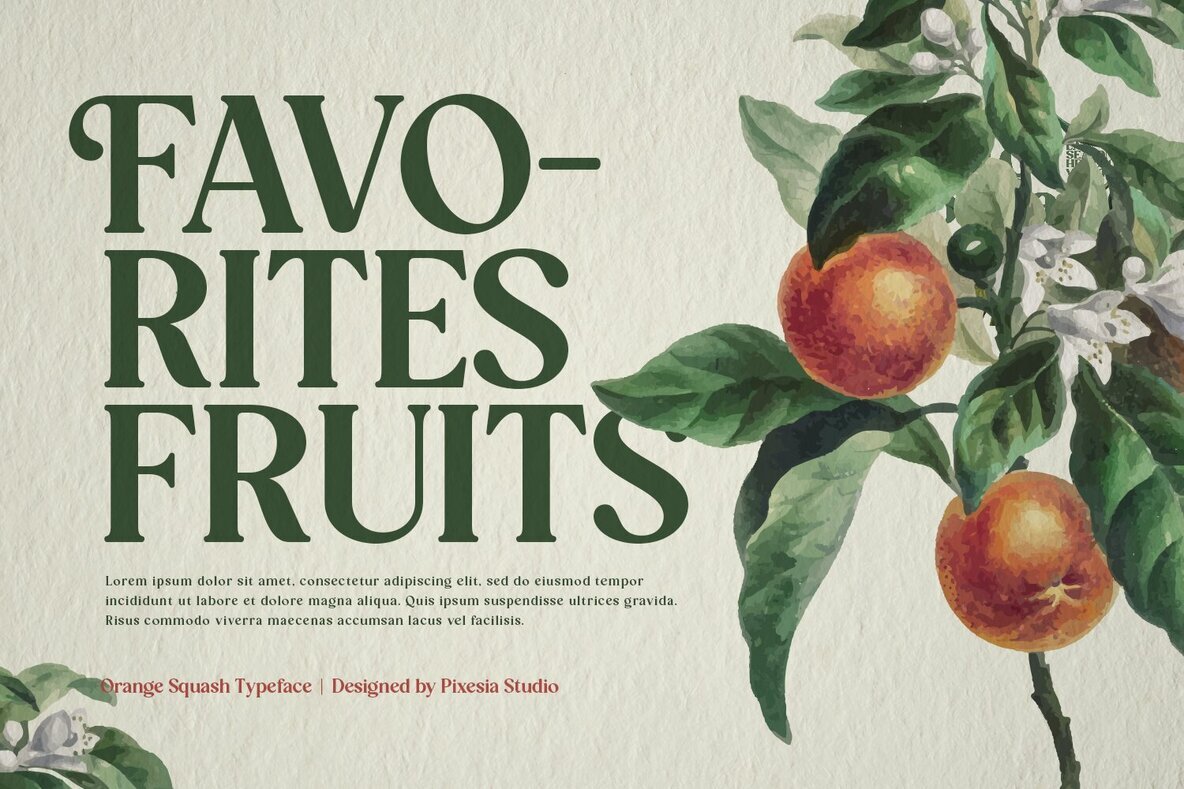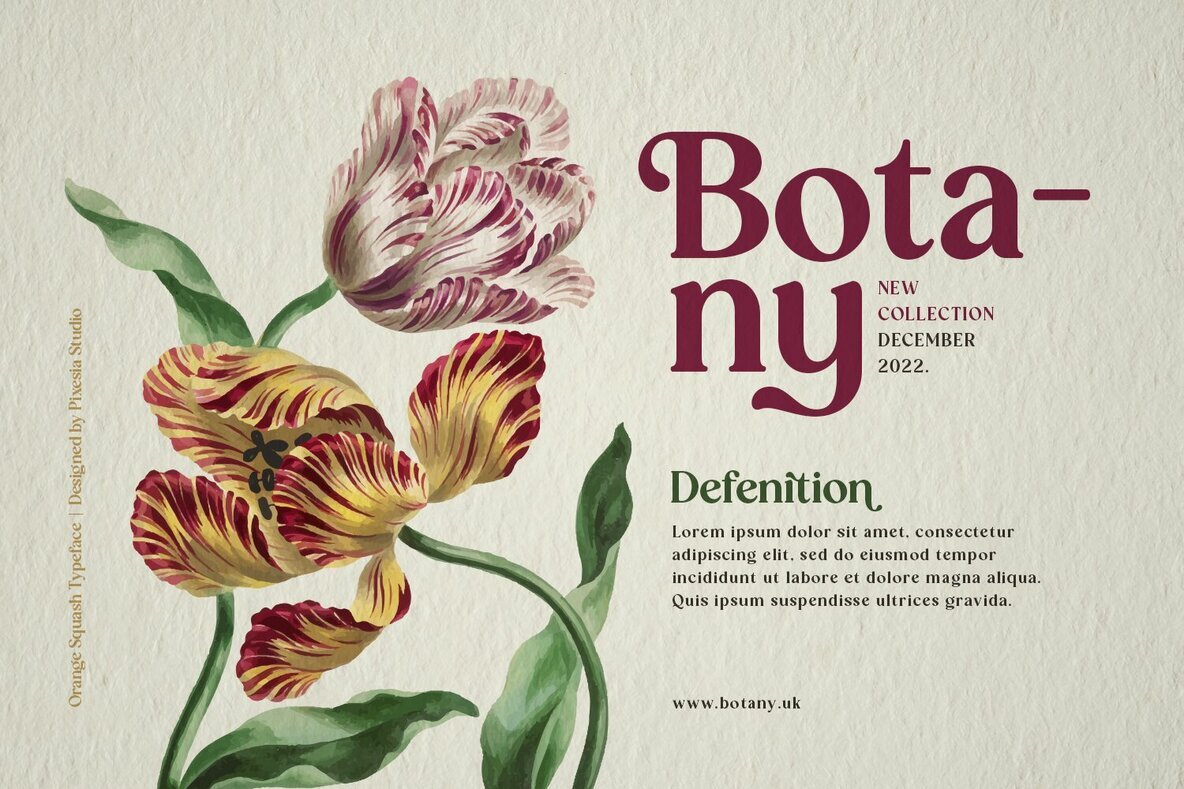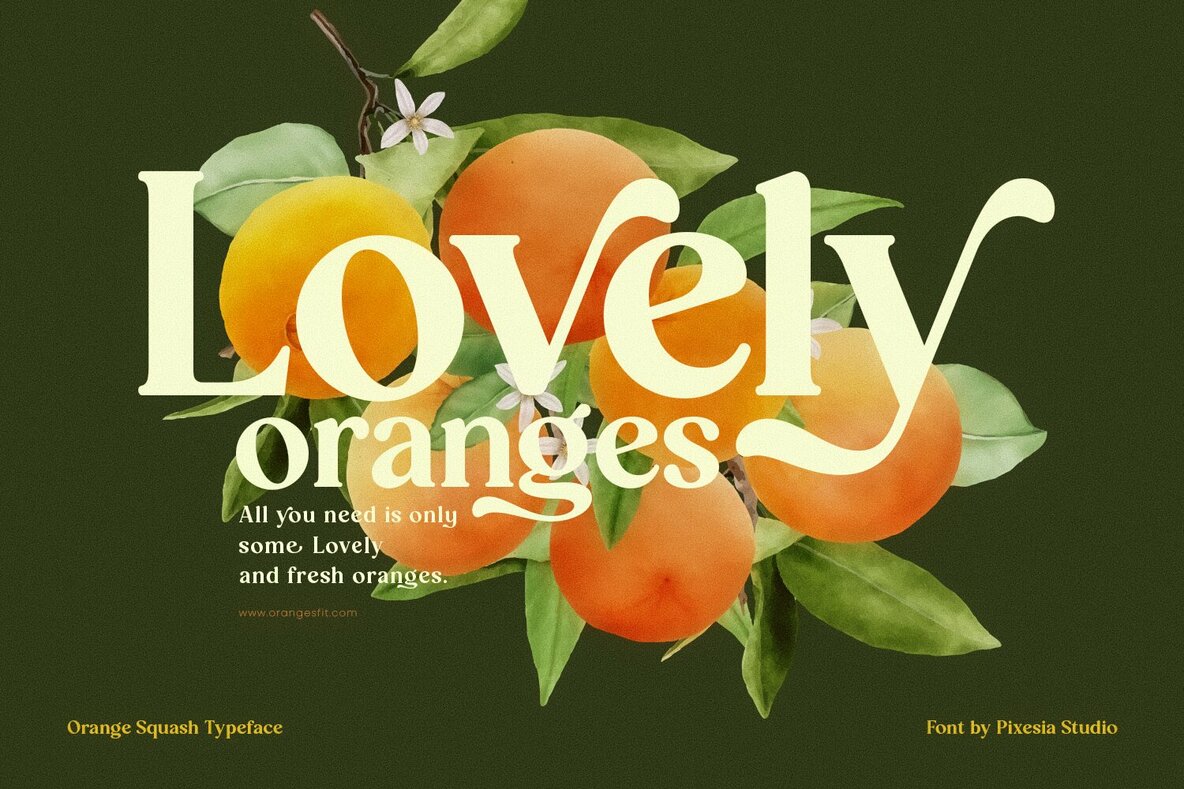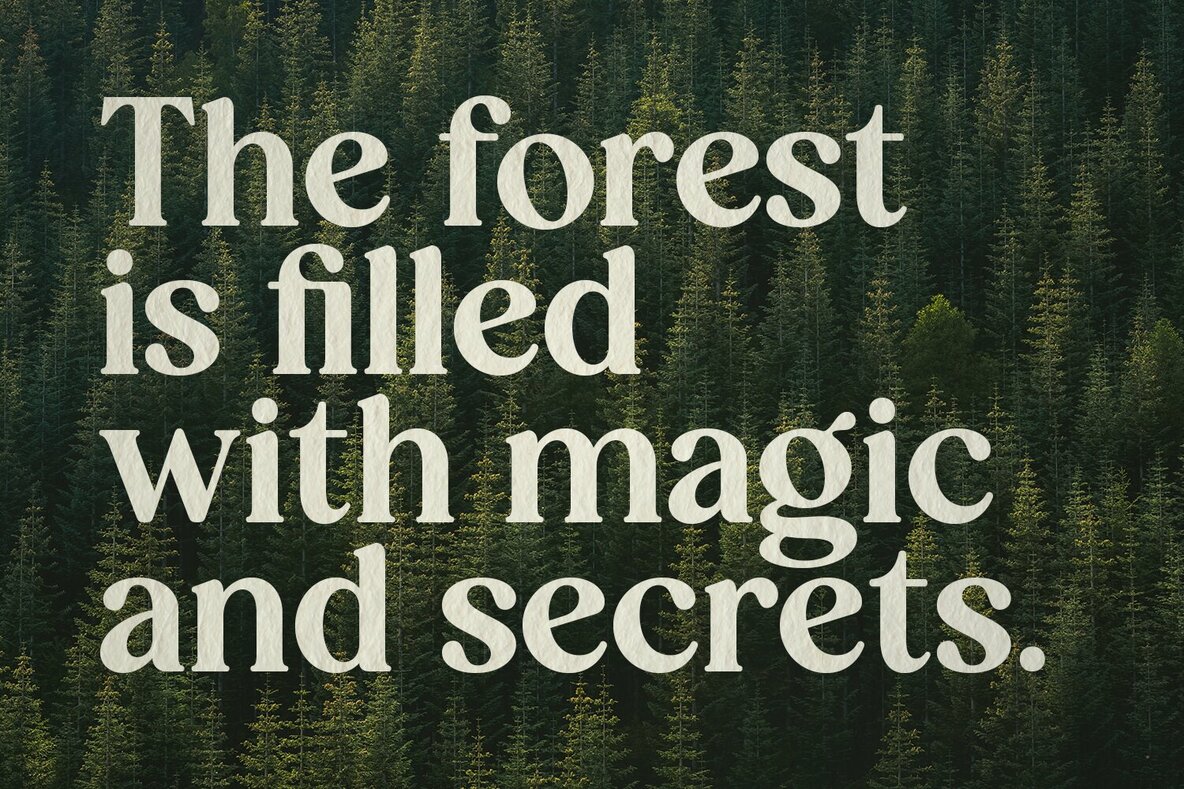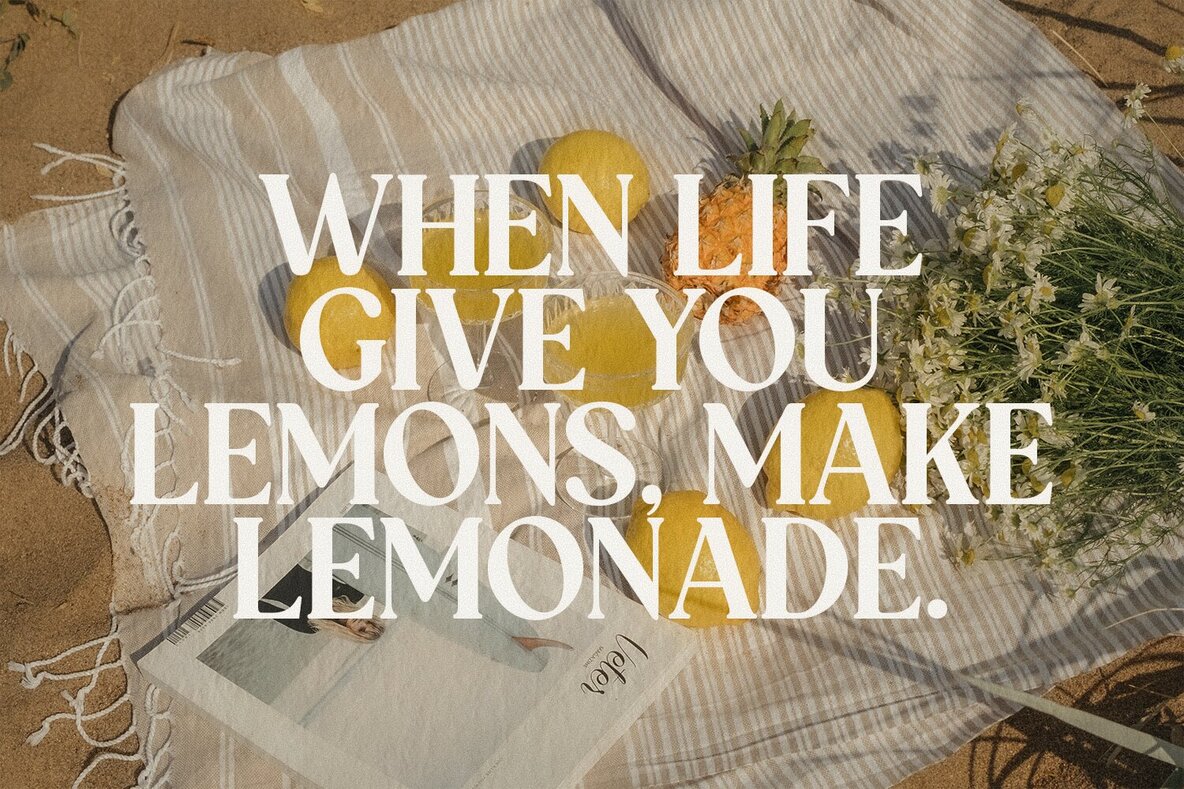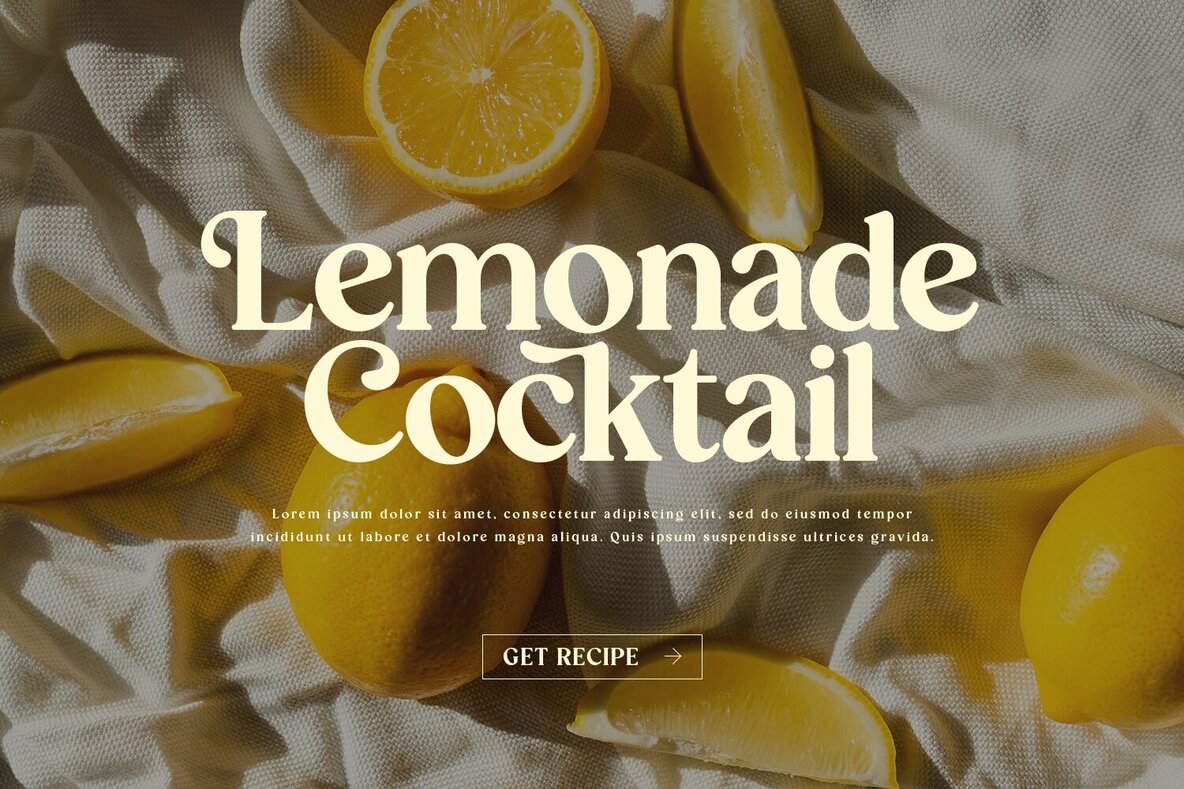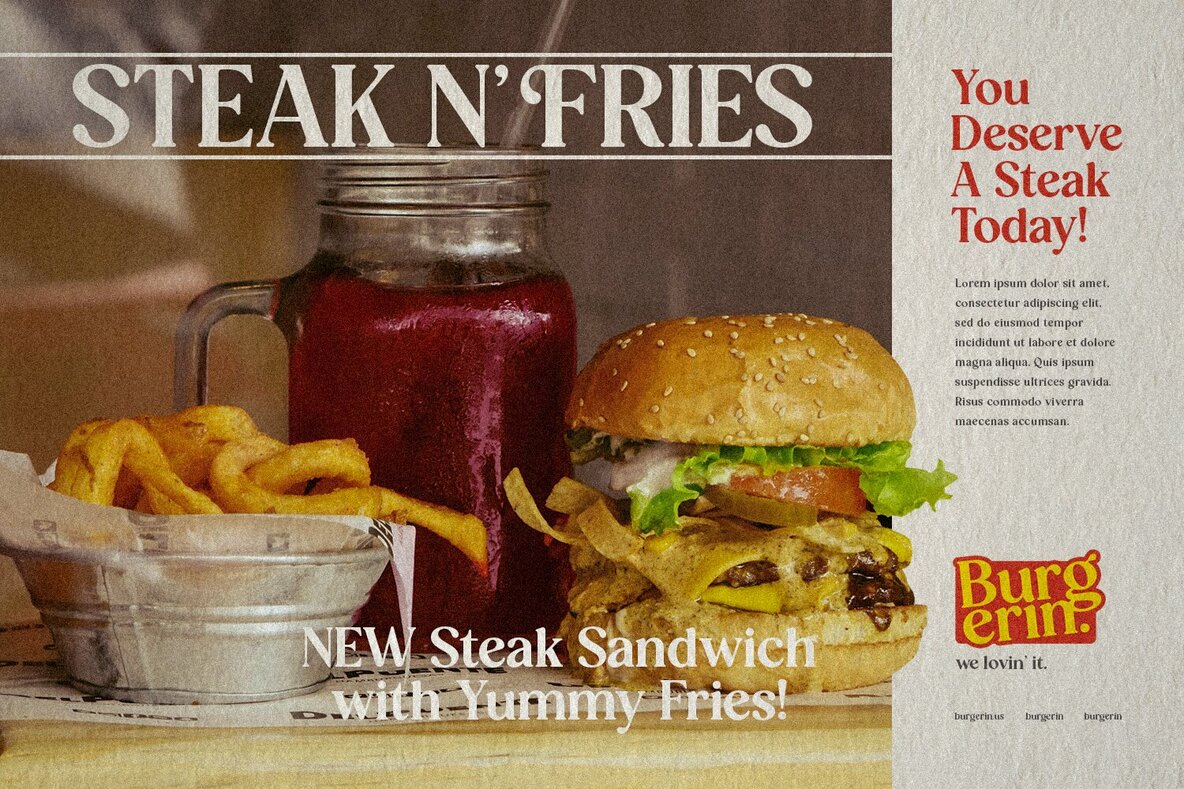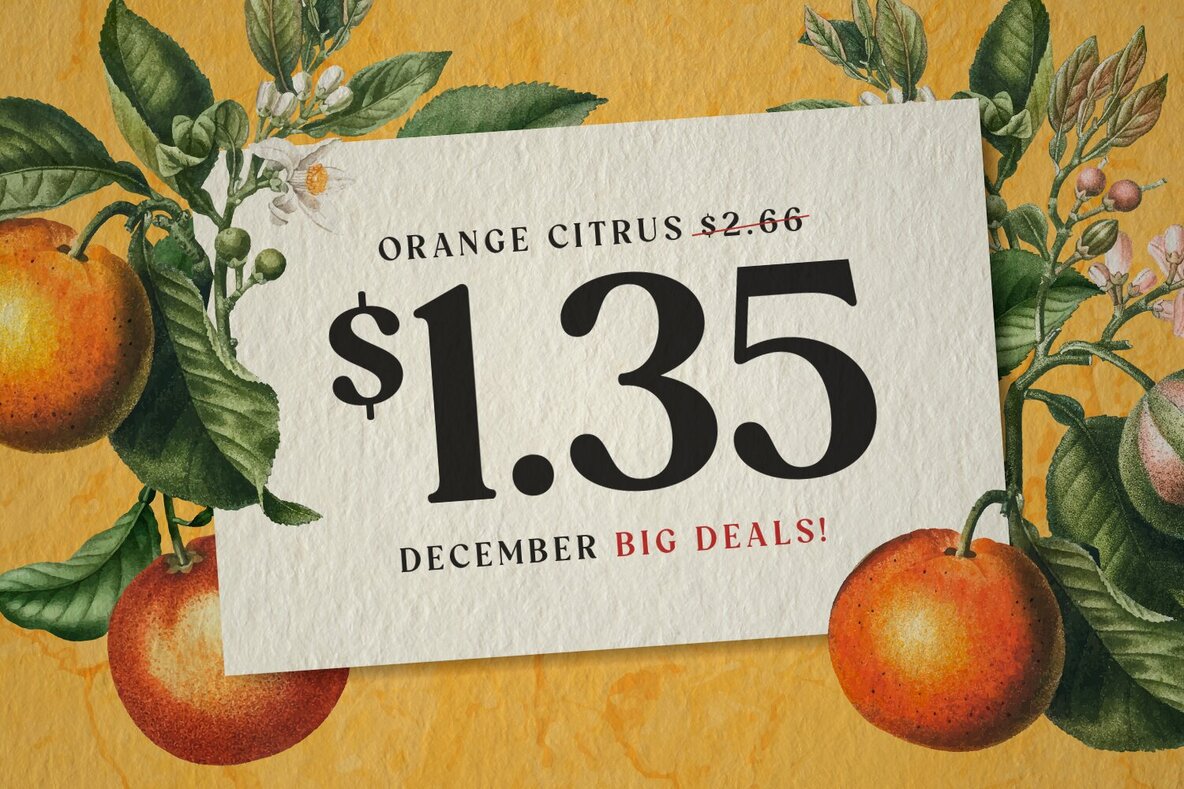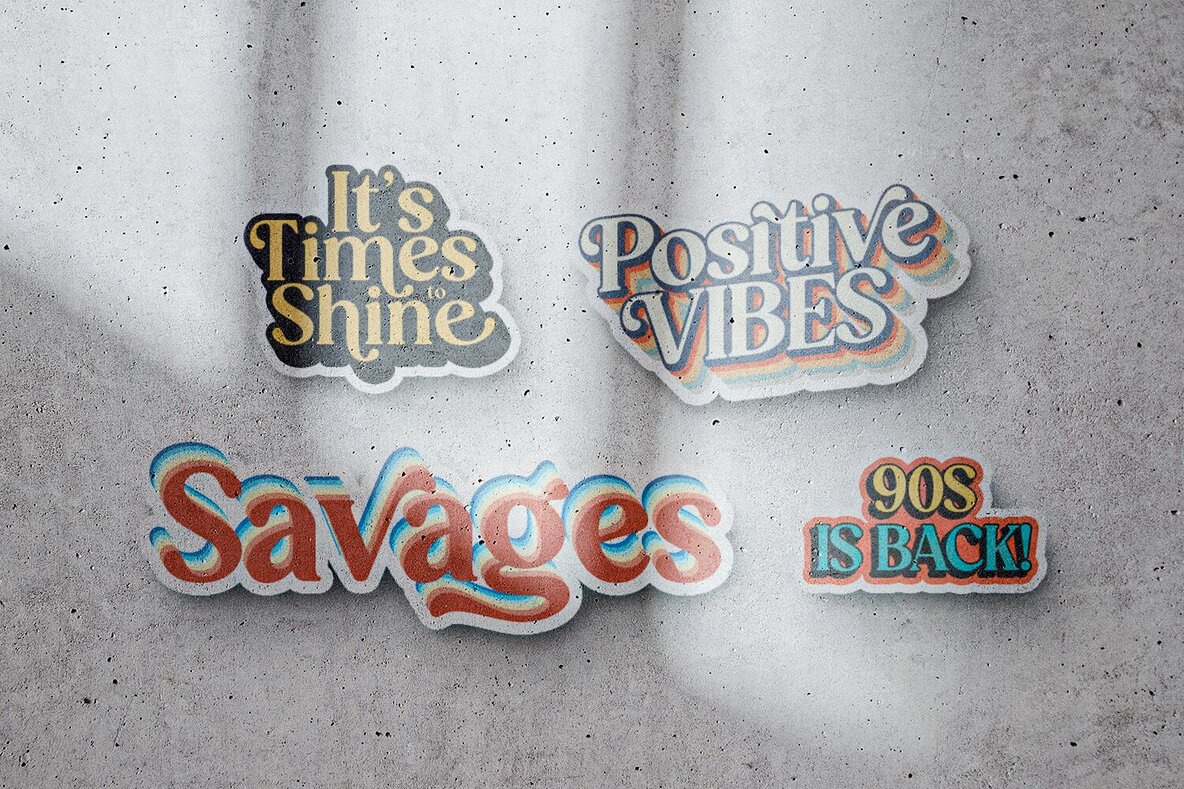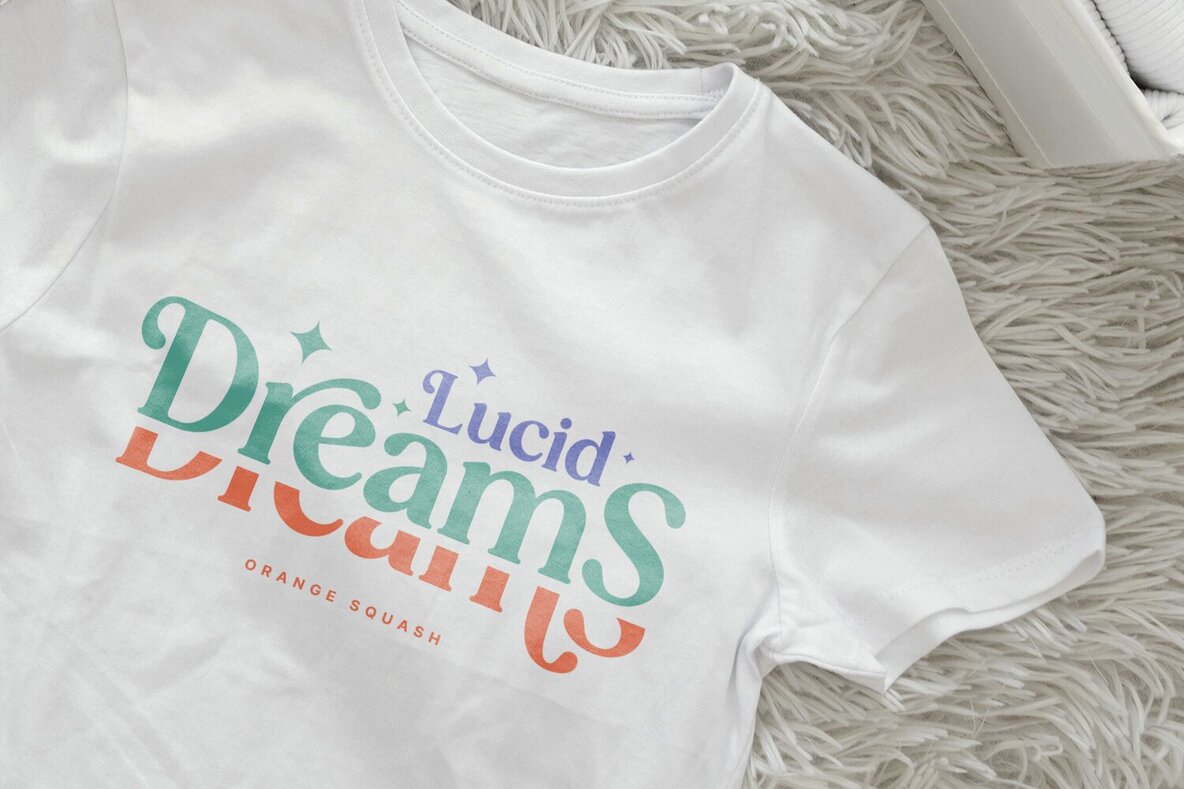
Orange Squash Font
Orange Squash Regular
Orange Squash is a bold, playful vintage serif font that adds a nostalgic flair to your designs. Featuring chunky serifs and lively curves, this font is ideal for crafting eye-catching headlines, logos, and other design elements that command attention.Orange Squash: Bold Vintage Serif
Design Features
Pixesia Studio is a Palu-based type foundry known for its broad, concept-driven catalog of fonts that span everything from retro display styles to elegant serifs and festive scripts. Established in 2020 in Central Sulawesi, Indonesia, Pixesia quickly built a reputation for delivering eye-catching, commercially...